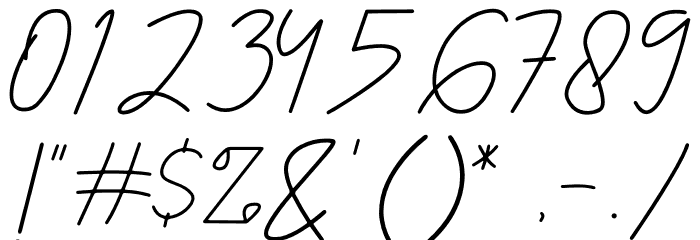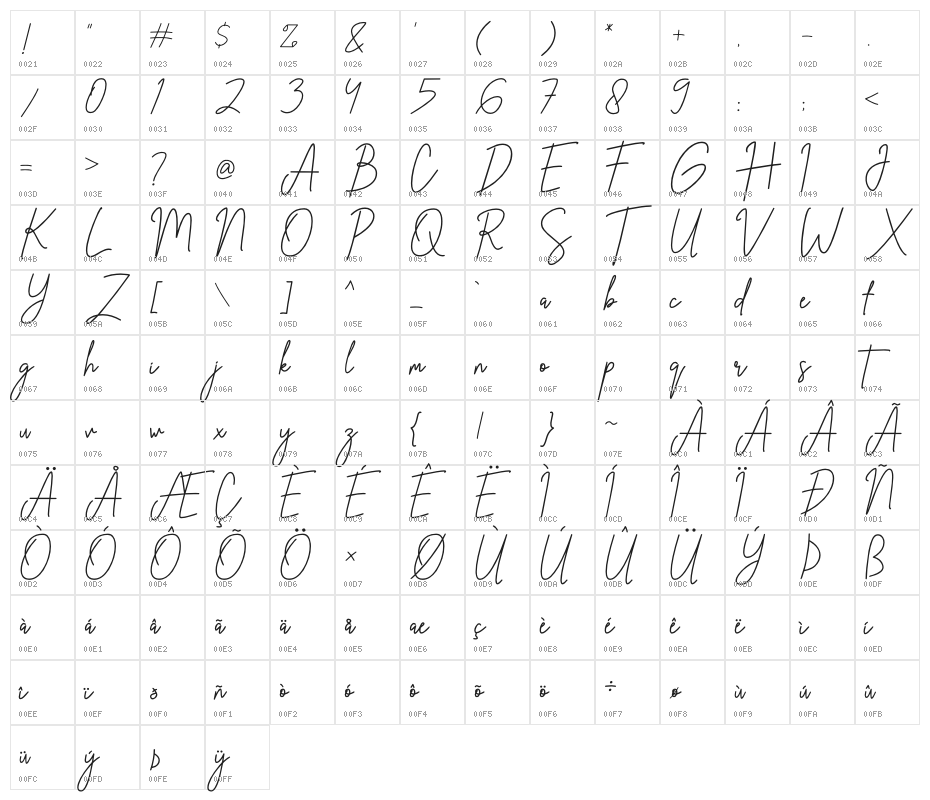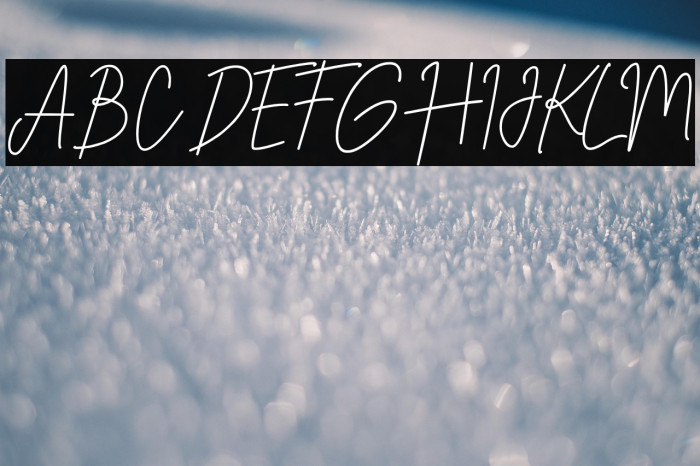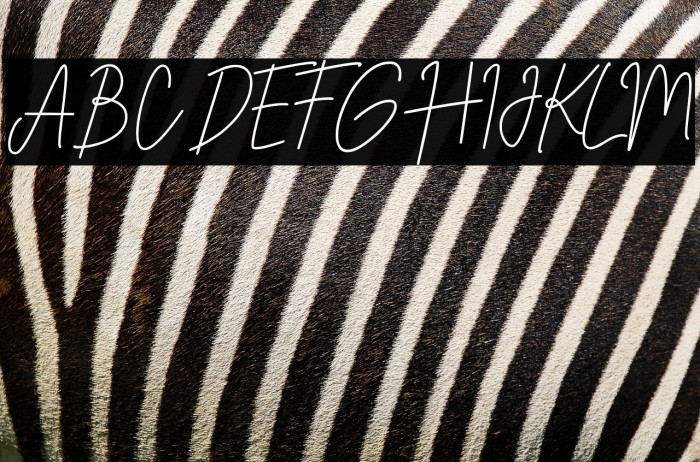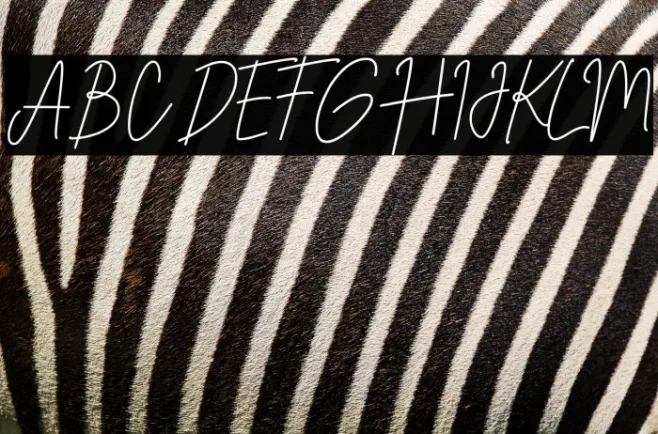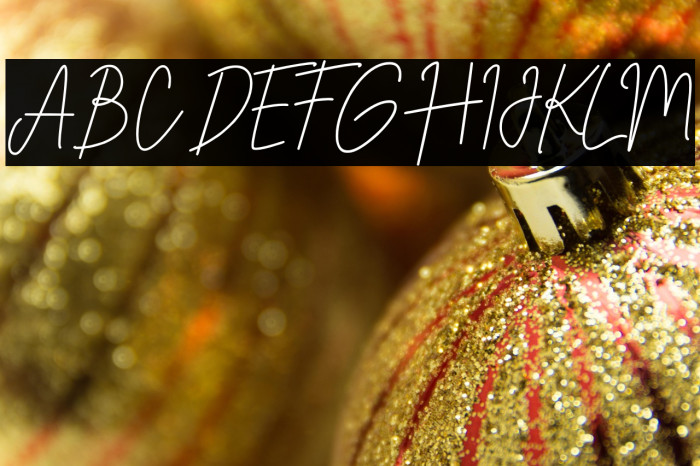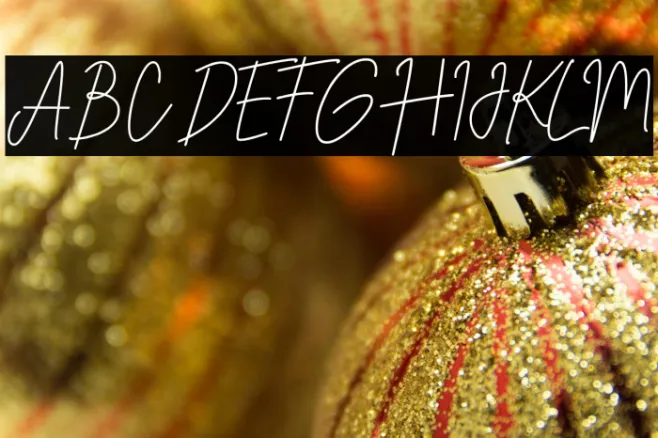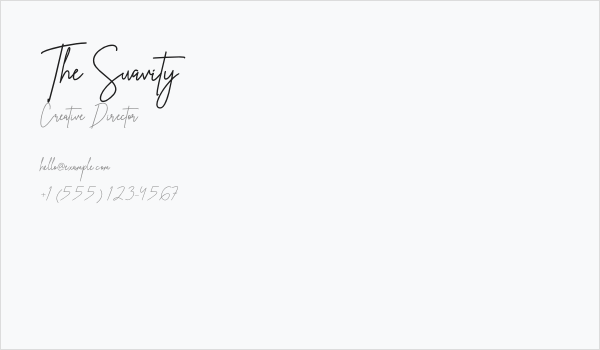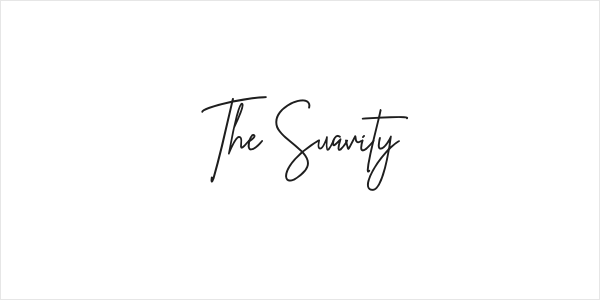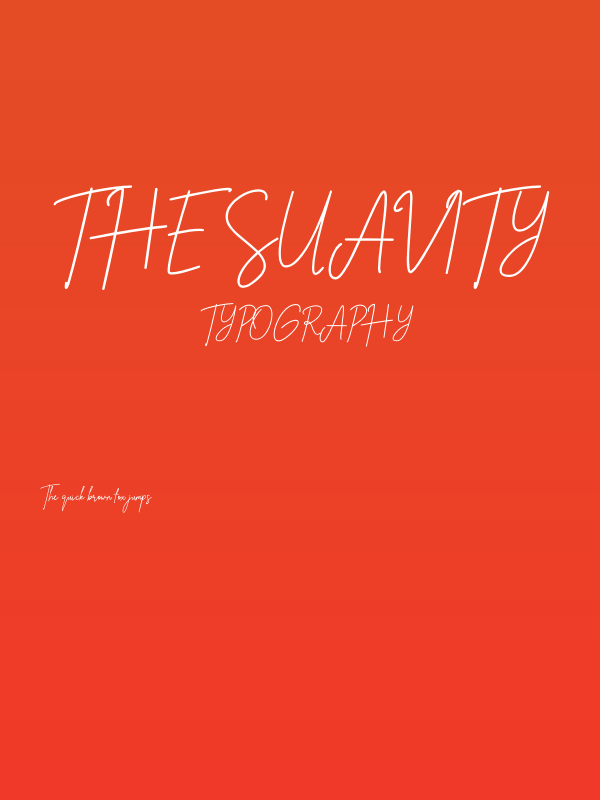
The Suavity Font
The Suavity Description
This font exudes a casual elegance with its fluid, handwritten style. The uppercase letters are tall and slender, with a slight slant that adds a dynamic feel. The lowercase letters are more compact, maintaining a consistent flow that mimics natural handwriting. Numbers are clear and distinct, matching the overall style with a slight tilt. Special characters are thoughtfully designed, ensuring they blend seamlessly with the letters and numbers. The overall appearance is both sophisticated and approachable, making it versatile for various design needs.